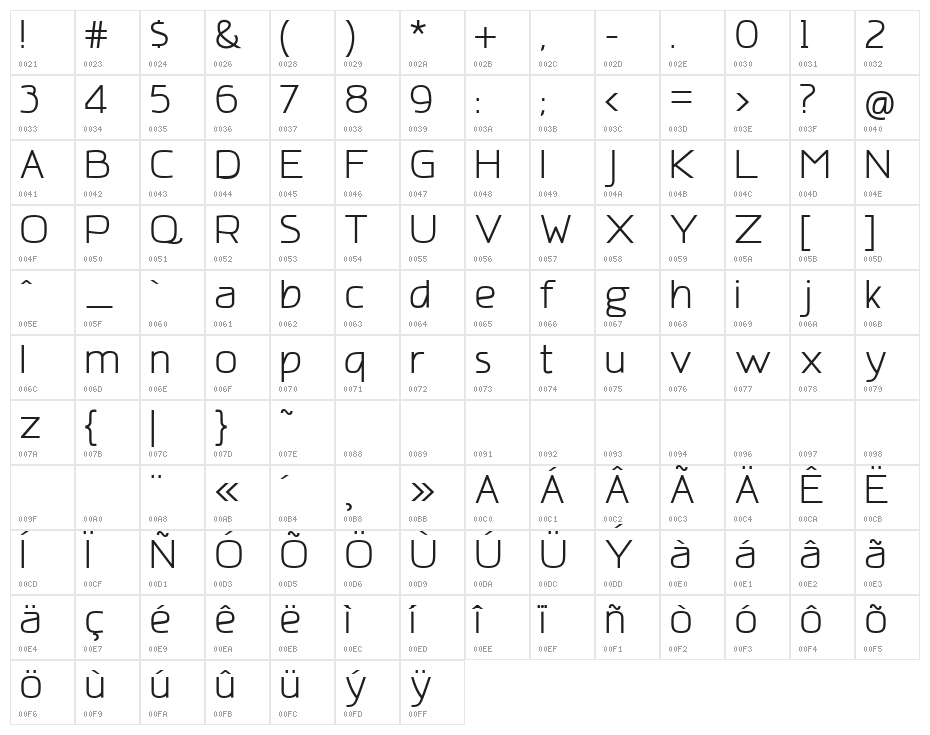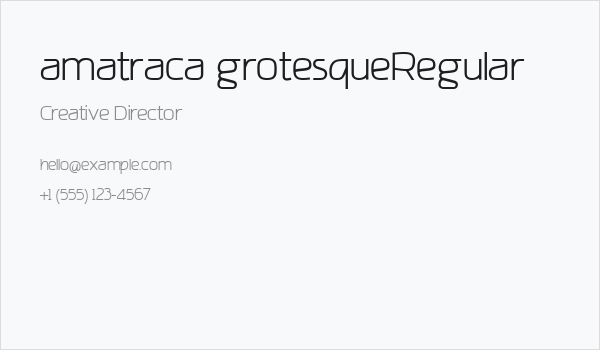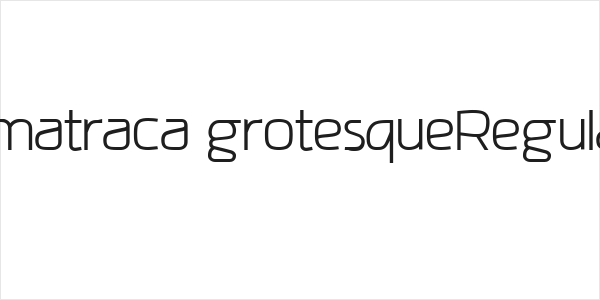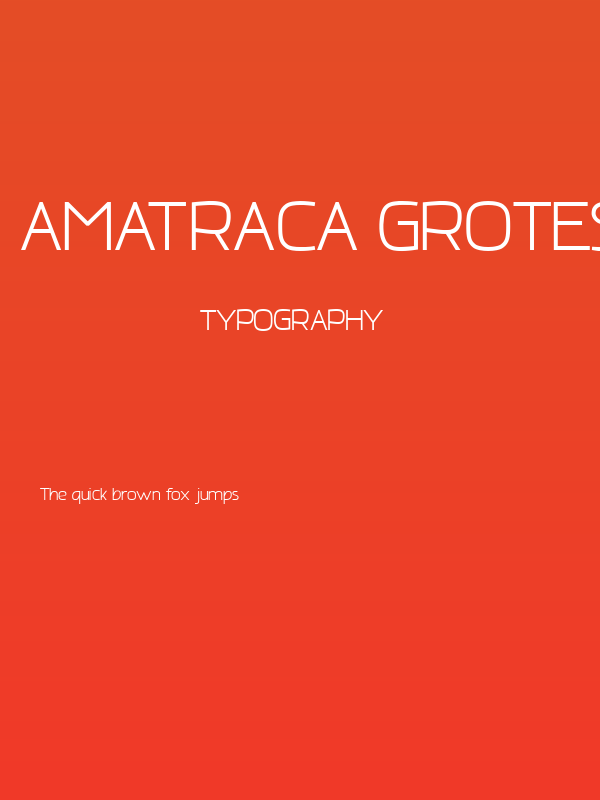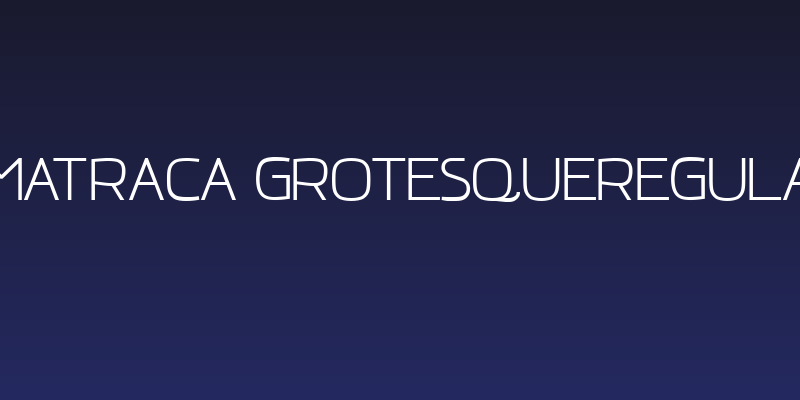
amatraca grotesqueRegular Font
amatraca grotesqueRegular Description
This typeface features a clean and modern sans-serif design, characterized by its geometric shapes and uniform stroke widths. The uppercase letters are tall and slightly condensed, giving a sleek and professional appearance. The lowercase letters maintain a consistent height, with rounded edges that add a touch of softness to the overall look. The numerals are clear and easy to read, making them suitable for various applications. Special characters are well-integrated, maintaining the font's cohesive style. The overall design is minimalist, focusing on readability and versatility, making it ideal for both digital and print media.